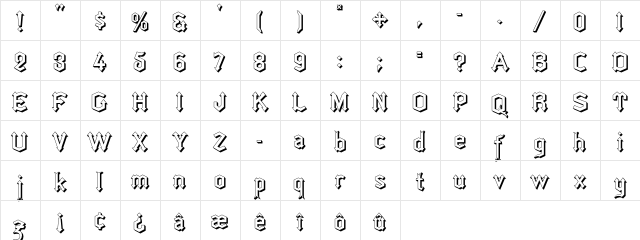
ArrowheadLakeShadows Regular
Design Context for ArrowheadLakeShadows Typeface
ArrowheadLakeShadows is built around its visual character rather than neutral utility — its distinctive forms are designed to make an impression at display sizes.
Font Pairing: Pair with a clean neutral sans-serif for body copy to let ArrowheadLakeShadows's character lead without overwhelming the composition.
Pro Tip: Use ArrowheadLakeShadows exclusively at display sizes — it was designed to be seen, not read at length. Let a neutral companion handle body copy.